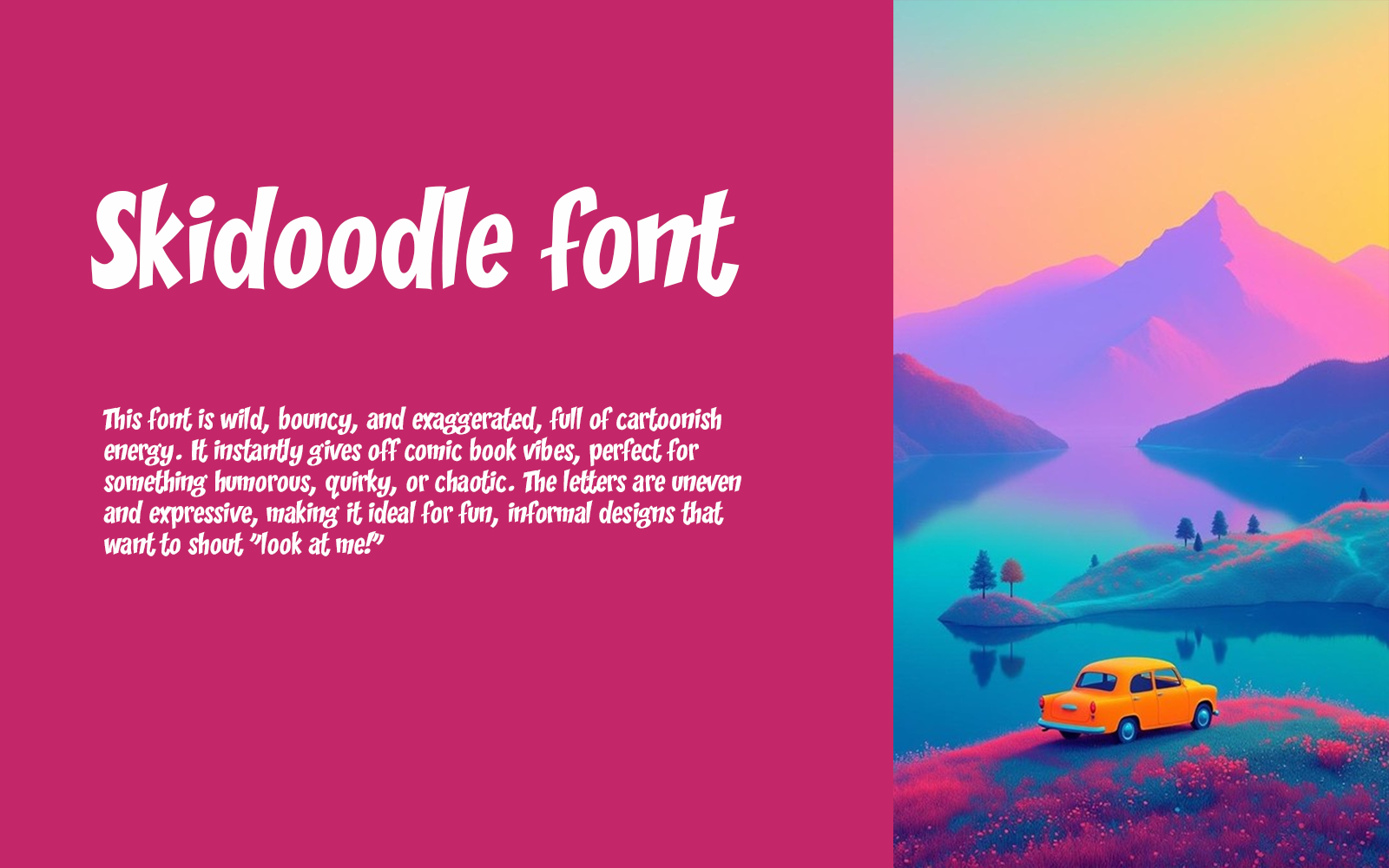
Skidoodle font-Roman-089-25
Get loud, get weird, get Skidoodle!
This zany comic font explodes with energy and fun, perfect for designs that don’t take themselves too seriously.
Add chaos, character, and a whole lotta bounce to your headlines.
For cartoons, kids’ media, or Halloween flair Skidoodle brings the BAM!